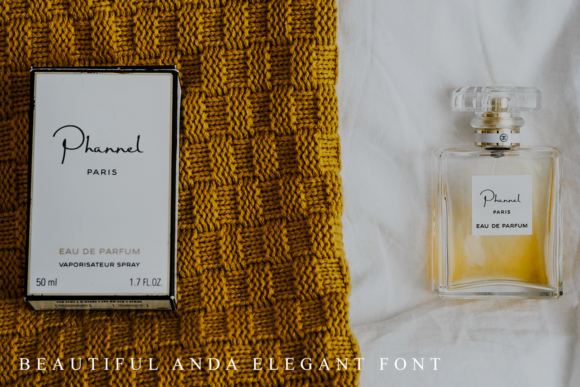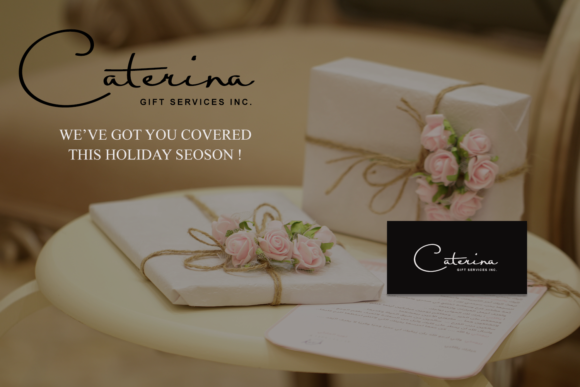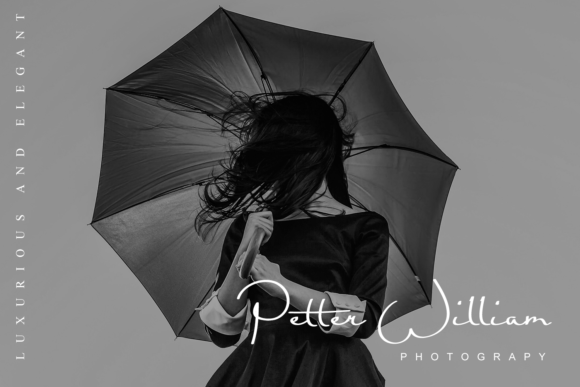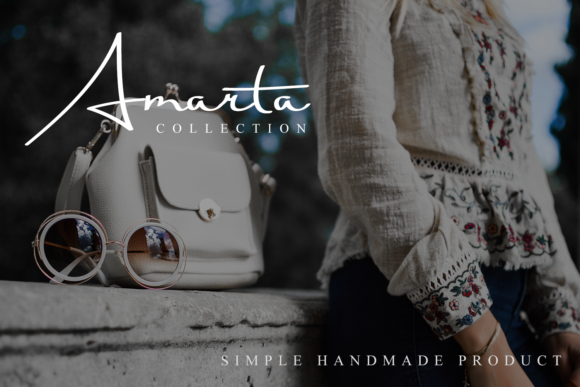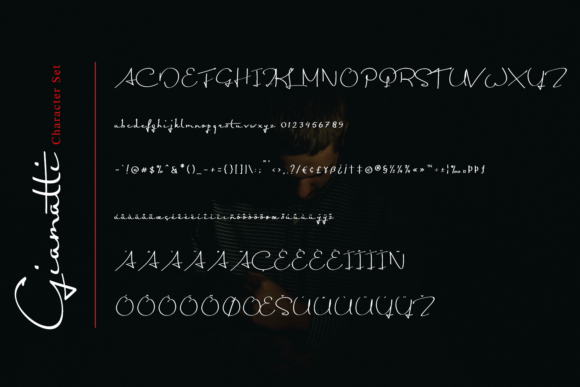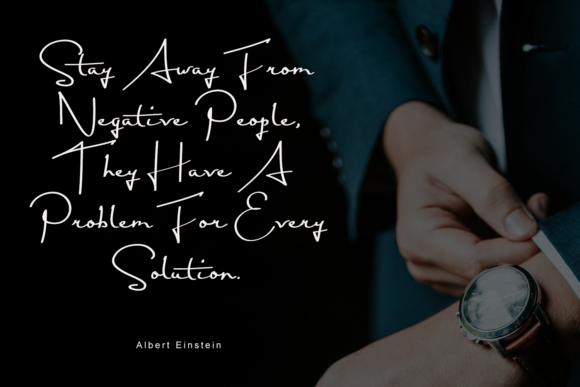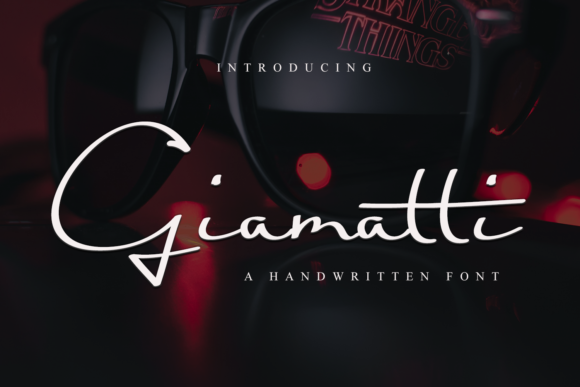
Giamatti Font: A Light and Charming Script Font for Your Design Projects
Are you looking for a font that can add a touch of elegance and sophistication to your design projects? Look no further than the Giamatti font. This beautiful script font is designed to radiate authenticity and charm, making it perfect for a wide range of design applications.
What is Giamatti Font?
Giamatti is a light and charming script font that is perfect for designers and crafters who want to add a personal touch to their work. The font features beautiful, flowing lines and a delicate appearance that is sure to capture the attention of your audience. Whether you’re working on a branding project, a wedding invitation, or a craft project, Giamatti is a versatile font that can be used in a variety of contexts.
Key Features of Giamatti Font
- Light and charming script font: Giamatti is a beautifully designed script font that features light and charming lines, perfect for adding a touch of elegance to your designs.
- Authentic and sophisticated look: The font radiates authenticity and sophistication, making it perfect for high-end design projects.
- Versatile and flexible: Giamatti can be used in a wide range of design applications, from branding and advertising to wedding invitations and craft projects.
- Easy to read: Despite its delicate appearance, Giamatti is easy to read and understand, making it perfect for body text and headlines.
Why Choose Giamatti Font?
There are many reasons why designers and crafters choose Giamatti font for their projects. Here are just a few:
- Unique and distinctive look: Giamatti has a unique and distinctive look that sets it apart from other script fonts on the market.
- High-quality design: The font is designed with high-quality lines and curves, ensuring that it looks great in any context.
- Great value: With its versatility and flexibility, Giamatti offers great value for designers and crafters who want a high-quality script font.
How to Use Giamatti Font in Your Design Projects
Using Giamatti font in your design projects is easy. Here are a few tips to get you started:
- Pair it with a bold font: Pair Giamatti with a bold font to create a striking contrast that adds visual interest to your design.
- Use it for headlines and titles: Giamatti is perfect for headlines and titles, where its elegant and sophisticated look can really shine.
- Add it to your branding materials: Use Giamatti in your branding materials, such as your logo, business cards, and letterhead, to add a touch of elegance and sophistication.
- Experiment with different colors: Giamatti looks great in a variety of colors, so don’t be afraid to experiment and find the perfect color for your design.
In conclusion, Giamatti font is a beautiful and versatile script font that is perfect for designers and crafters who want to add a touch of elegance and sophistication to their work. With its light and charming lines, authentic and sophisticated look, and ease of use, Giamatti is a great choice for a wide range of design applications. Whether you’re working on a branding project, a wedding invitation, or a craft project, Giamatti is sure to impress.